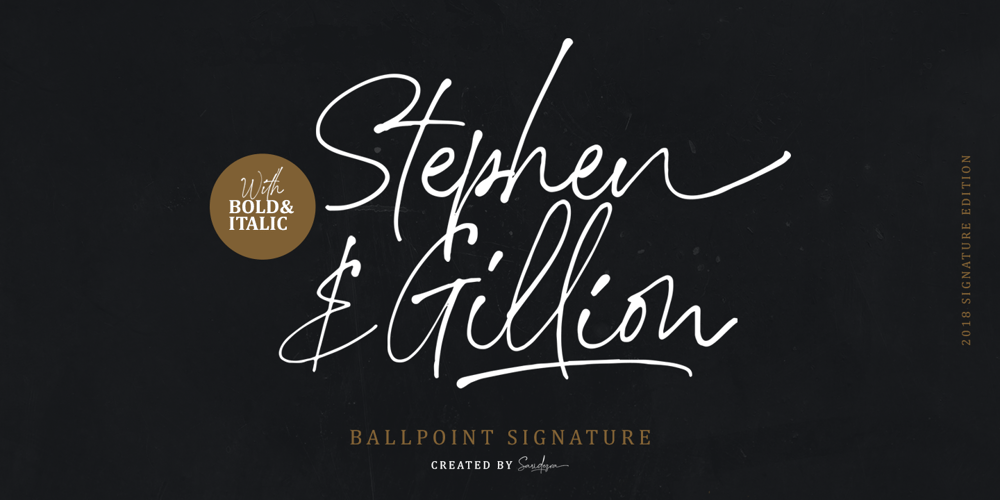
Stephen Gillion Font Family was designed by Sarid Ezra and published by Sarid Ezra. Stephen Gillion contains 3 styles and family package options. Stephen & Gillion is signature script with three style that contain stylistic alternate, swash, etc to create your own customized signature or logo design. Stephen & Gillion is a signature font that you can use to make a logo for branding, beautiful fashion design, suitable for wedding invitation, or handwritten quote. Come with heart-shaped connector! Also already PUA Encoded.Foreign Languages Support: ÀÁÂÃÄÅÇÈÉÊËÌÍÎÏÐÑÒÓÔÕÖØÙÚÛÜÝßàáâãäåæçèéêëìíîïðñòóôõöøùúûüýÿWhat Will You Get: Stephen & Gillion Regular (OTF & TTF) Stephen & Gillion Bold (OTF & TTF) Stephen & Gillion Italic (OTF & TTF) Instruction PS: Type underscore + number (from 1 to 5). Or copy Some_5thing in preview bellow..